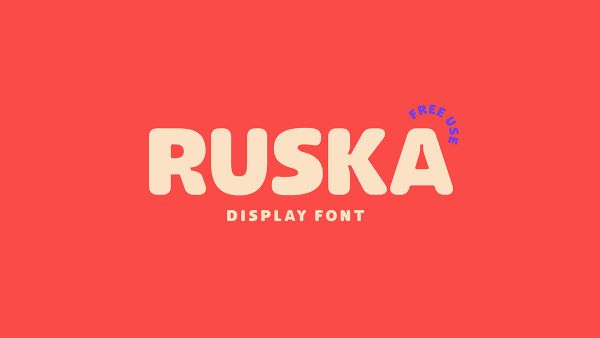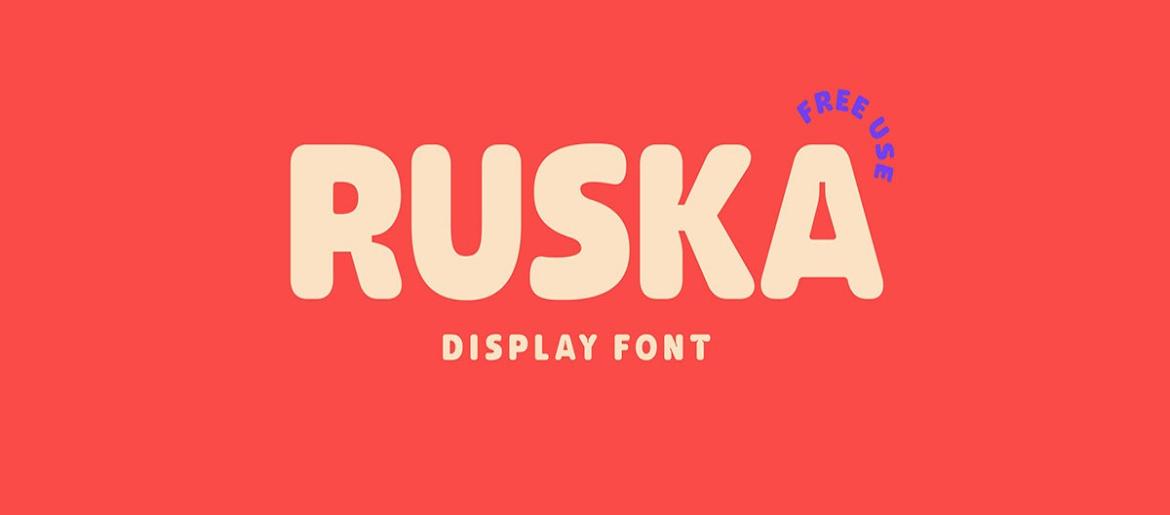
Ruska Font
Ruska Display is a free bold font by Brazilian designer Bruno Ruscão, created initially as a study project and released openly as a gift to the design community. What makes it immediately appealing is its distinctive technical character: the letterforms are built around rounded corners and an abundance of inktraps — those deliberate notched cuts at stroke junctions originally used in small-print metal type to prevent ink from pooling and filling in.
Ruska Display is a delightful addition to our free fonts collection, from Rio de Janeiro-based brand designer Bruno Ruscão, whose studio Ruscão Brands specializes in creating authentic and memorable brand identities.